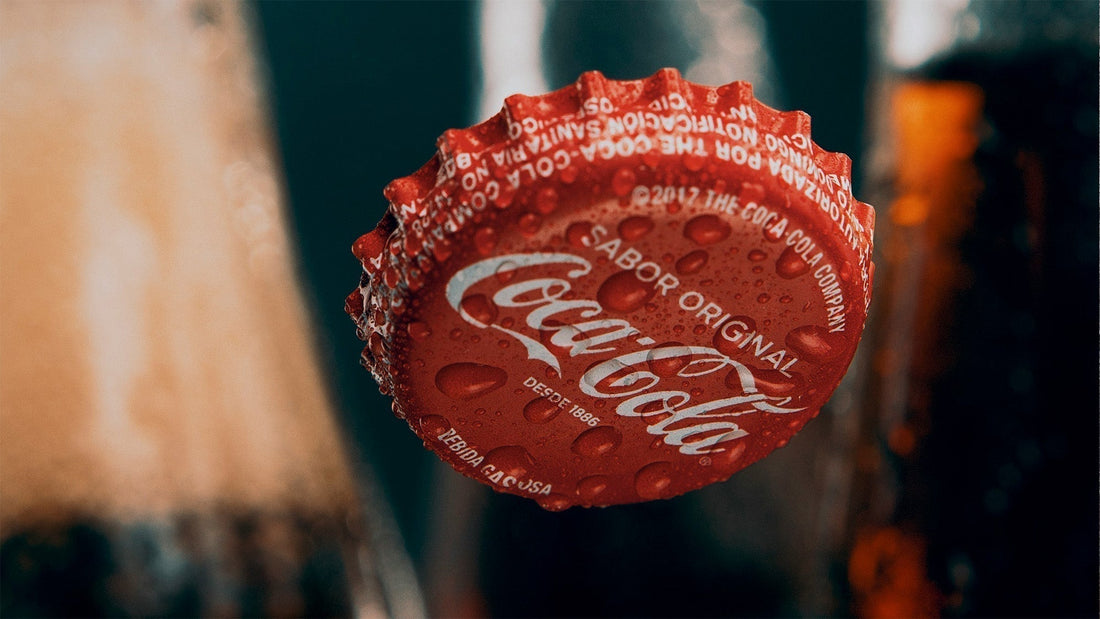
In the mid-19th century, long before keyboards and even typewriters became everyday tools, penmanship was an art form — and a practical necessity. Among the many handwriting styles developed during this period, Spencerian script stood out for its elegance, legibility, and widespread adoption in both education and commerce. Though it eventually gave way to more utilitarian writing systems, Spencerian remains one of the most graceful scripts ever standardized for everyday use.
Origins: A Handwriting System for a Growing Nation
Spencerian script was developed by Platt Rogers Spencer in the 1840s in the United States. Inspired by natural forms such as gently curving branches and flowing water, Spencer created a system of writing that combined beauty with practicality. His goal was to provide a uniform, teachable handwriting style that could be used by businesses, schools, and individuals alike. Spencer’s method emphasized smooth, elliptical strokes and consistent slant. It relied on light, rapid arm movement and precise rhythm, making it faster and less fatiguing than many of the heavy, angular styles that came before. The result was a script that was both ornamental and functional.
Widespread Use and Educational Impact
By the 1850s and 1860s, Spencerian had become the dominant handwriting style in the United States. It was adopted by schools, promoted through writing manuals, and used in business correspondence and accounting. Many institutions across North America trained students using Spencerian copybooks, with lessons designed to cultivate not only penmanship but also concentration and character.
Businesses, too, favored the script. Its refined aesthetic conveyed professionalism and trustworthiness — essential values in an era of handwritten ledgers and correspondence. One of the most famous corporate adopters was the Coca-Cola Company, whose iconic logo still bears the unmistakable influence of Spencerian script.
Decline: Changing Tools and New Demands
As the 19th century gave way to the 20th, new technological and social forces reshaped how people wrote. The increasing use of typewriters made ornate cursive less practical in the business world. At the same time, a cultural shift toward speed and simplicity created a need for handwriting systems that were quicker to learn and easier to execute. Enter the Palmer Method. Designed to be less ornamental and more efficient, Palmer replaced Spencerian in many schools by the early 1900s. Where Spencerian celebrated beauty and individuality, Palmer prioritized legibility and uniformity under pressure. Spencerian did not vanish, but its presence receded. For much of the 20th century, it lived on mainly through calligraphy circles, logo design, and historical interest.
A Renewed Appreciation
Today, Spencerian script is experiencing a quiet revival. Calligraphers, typographers, and lettering artists around the world are rediscovering its grace and technical challenge. Online communities share scans of vintage copybooks, host workshops, and explore the script’s artistic and historical value. Unlike standardized handwriting instruction of the past, today’s interest in Spencerian is often voluntary — driven by curiosity, craftsmanship, and a desire to reconnect with the tactile pleasures of pen and paper. In an age of rapid digital communication, Spencerian reminds us that writing can be more than a means to an end. It can be a practice of presence. A dance between form and function. A visible expression of rhythm, care, and intention.